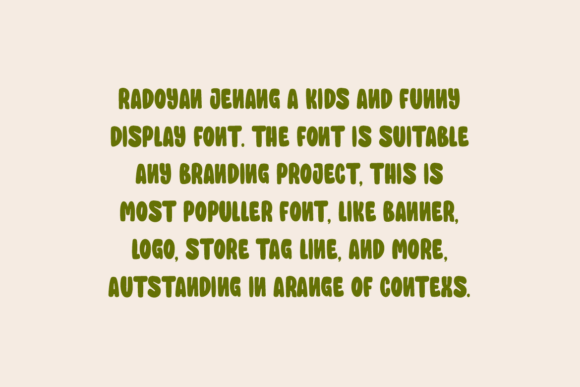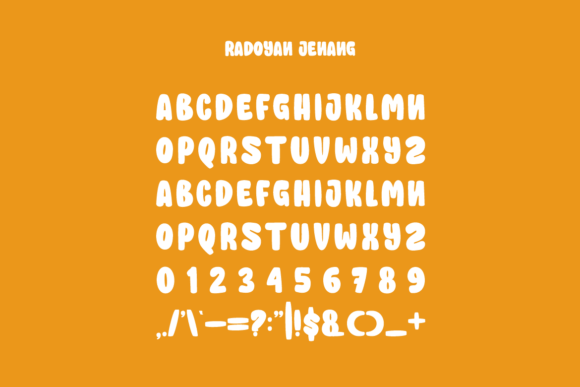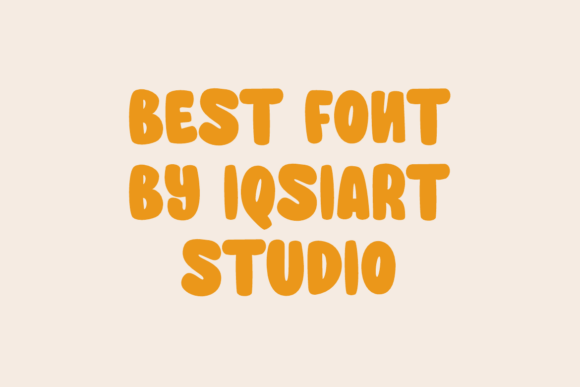
Introduction to Radoyan Jenang Font
Have you ever stared at a blank page, desperately searching for the perfect font to bring your creative project to life? The blank stare, the endless scrolling through design resources, and the frustration of not finding the right fit – we’ve all been there. But what if I told you that there’s a font that can add a dash of fun and whimsy to your design, making it stand out from the crowd? Enter the Radoyan Jenang Font, a playful and quirky font designed to capture attention with its friendly and vibrant personality.
As a valuable resource for designers, the Radoyan Jenang Font offers a high-quality design solution that’s perfect for kids’ projects, posters, cartoons, book covers, and branding materials. With its bold, rounded letters and transparent background, this font is a must-have for anyone looking to add a creative touch to their work.
Key Features of Radoyan Jenang Font
- Unique and elegant design, perfect for creative projects and design resources.
- High-quality font with transparent background, ideal for use in digital designs.
- Designed with a high-resolution 300 DPI, ensuring crisp and clear display on various screens and devices.
- Perfect for use in logos, branding materials, and other design elements that require a touch of elegance and sophistication.
Honest Review: Radoyan Jenang Font
I recently came across the Radoyan Jenang Font, and I must say it’s been a great addition to my design resource library. The font’s high quality is immediately noticeable, making it perfect for any creative project that requires a unique touch.
One of the things that stands out about the Radoyan Jenang Font is its transparency. The ability to adjust the background opacity adds an extra layer of flexibility when using this font in design. It’s perfect for creating visually appealing text overlays or watermarks.
- High-quality design that’s perfect for creative projects ✨
- Transparent background allows for customization and flexibility ✨
- Some users may find the font’s unique style challenging to work with ⚠️
Overall, the Radoyan Jenang Font is a valuable addition to any designer’s toolkit. Its high quality and transparent background make it perfect for creative projects, and the free download option makes it accessible to designers of all levels.
The Radoyan Jenang Font is perfect for a variety of creative projects, such as logos, posters, and business cards. Its high-quality design and transparent background make it ideal for use in a range of design applications.
Tips for Getting the Most Out of Radoyan Jenang Font
To get the most out of the Radoyan Jenang Font, try using it with a transparent background to create a unique and eye-catching design. You can also experiment with different font sizes and colors to add depth and interest to your design.
Q: Is the Radoyan Jenang Font suitable for high-resolution designs?
Yes, the Radoyan Jenang Font is designed to be high-resolution, making it suitable for use in a variety of creative projects, including print and digital designs. However, it’s always a good idea to test the font in your specific design environment to ensure it displays correctly and at the desired resolution.